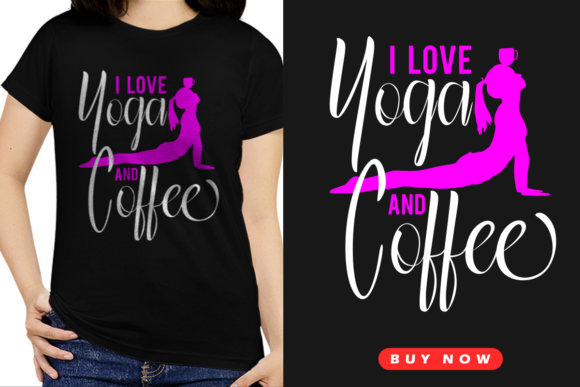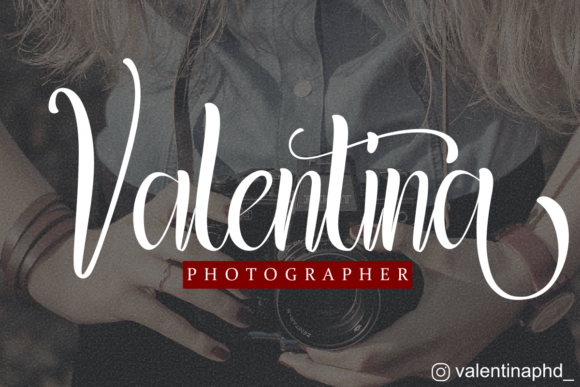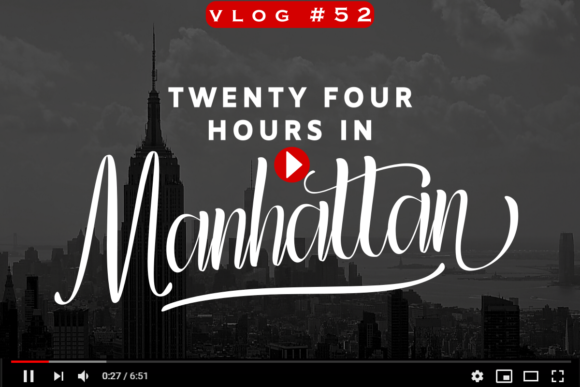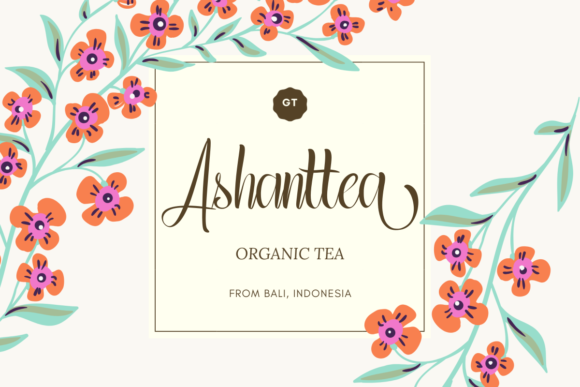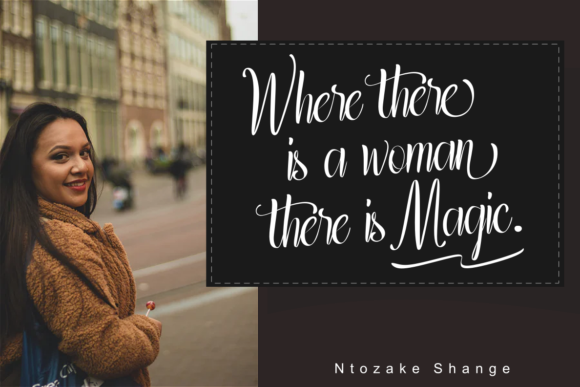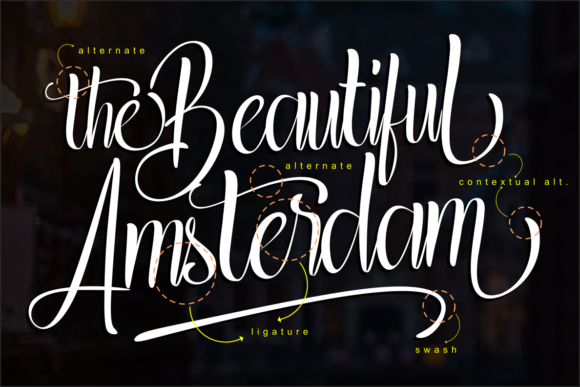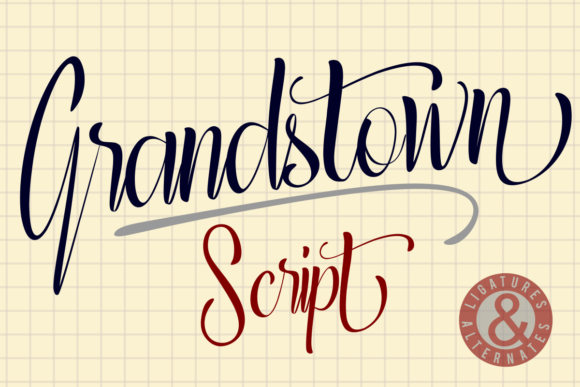
Introducing Grandstown Script Font: Elevate Your Designs with Elegance
Are you on the hunt for a font that exudes sophistication, elegance, and a touch of modern flair? Look no further than the Grandstown Script Font. This stunning handwritten font is designed to take your creative projects to new heights, offering a perfect blend of classic calligraphy and contemporary style.
What Makes Grandstown Script Font Stand Out?
Grandstown Script is not just any ordinary font. It’s a meticulously crafted typeface that boasts a range of features designed to make your designs stand out. Here are just a few reasons why Grandstown Script Font should be at the top of your font wishlist:
- PUA Encoding: Grandstown Script Font is PUA (Private Use Area) encoded, which means you can easily access all the glyphs and swashes without any hassle. This feature is especially useful for designers who want to add a personal touch to their work.
- Varying Baseline: The font features a varying baseline, which gives it a natural, handwritten feel that’s perfect for creating elegant and sophisticated designs.
- Smooth Lines and Glyphs: Grandstown Script Font is characterized by its smooth lines and gorgeous glyphs. Each letterform is carefully designed to ensure that your text looks beautiful and refined.
- Stunning Alternates: The font comes with stunning alternates that allow you to add some extra flair to your designs. Whether you’re working on a logo, a wedding invitation, or a branding project, these alternates will give you the flexibility to experiment with different styles.
Classy Calligraphic Influences with a Modern Twist
Grandstown Script Font strikes the perfect balance between traditional calligraphy and modern design. It maintains the elegance and sophistication of classic calligraphy while feeling fresh and contemporary. This makes it an ideal choice for designers who want to create designs that are both timeless and on-trend.
Grandstown Script Font is versatile and can be used for a wide range of projects, including:
- Branding and Logo Design: Create a lasting impression with a custom logo that showcases your brand’s personality and style.
- Wedding Invitations and Stationery: Add a touch of elegance to your wedding invitations, stationery, and other paper goods.
- Packaging Design: Stand out on store shelves with beautifully designed packaging that reflects your brand’s values and aesthetic.
- Digital Design: Use Grandstown Script Font to create stunning digital designs, including social media graphics, website headers, and more.
Why Choose Grandstown Script Font?
With so many fonts available, why choose Grandstown Script Font? Here are just a few reasons why this font stands out from the rest:
- Unique and Exclusive: Grandstown Script Font is a one-of-a-kind typeface that’s sure to make your designs stand out.
- Ease of Use: The font is easy to use and comes with a comprehensive guide to help you get started.
- High-Quality Design: Grandstown Script Font is designed with high-quality and precision, ensuring that your designs look professional and polished.
Grandstown Script Font is a stunning handwritten font that’s perfect for designers and crafters who want to elevate their designs with elegance and sophistication. With its PUA encoding, varying baseline, smooth lines, and gorgeous glyphs, this font is sure to become a favorite in your design arsenal. So why wait? Fall in love with Grandstown Script Font and bring your projects to the highest levels!